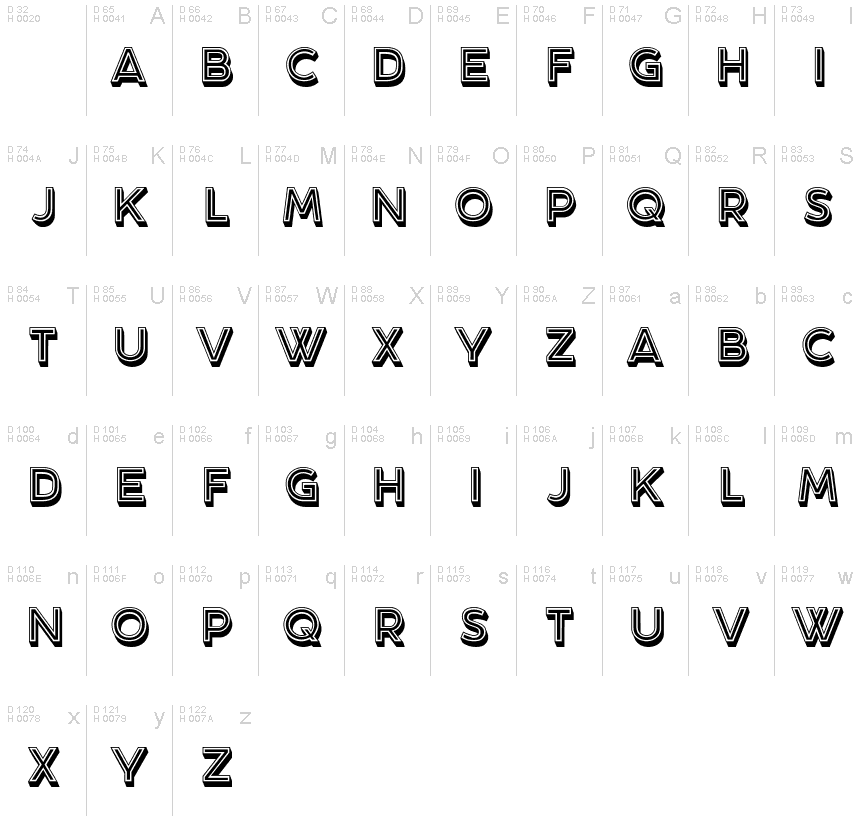
Eyedropper Filled Regular
Eyedropper Filled is a stunning display font designed by Vladimir Nikolic. This 3D sans-serif typeface is perfect for projects that require a bold and attention-grabbing statement. Its unique design is perfect for logos, headlines, and posters, giving your text a distinct edge over the competition. The bold width makes it stand out even more, making it ideal for branding or advertising materials. Whether you're designing a website banner or creating a print ad campaign, Eyedropper Filled is the perfect choice to bring your message to life. Try it out today and take your designs to the next level!